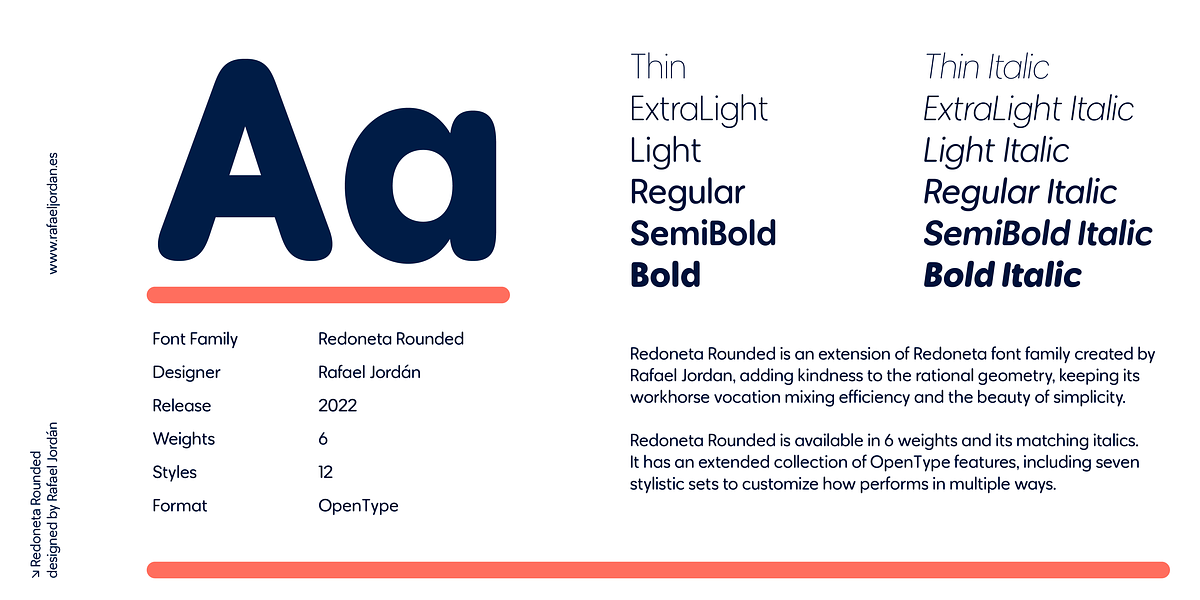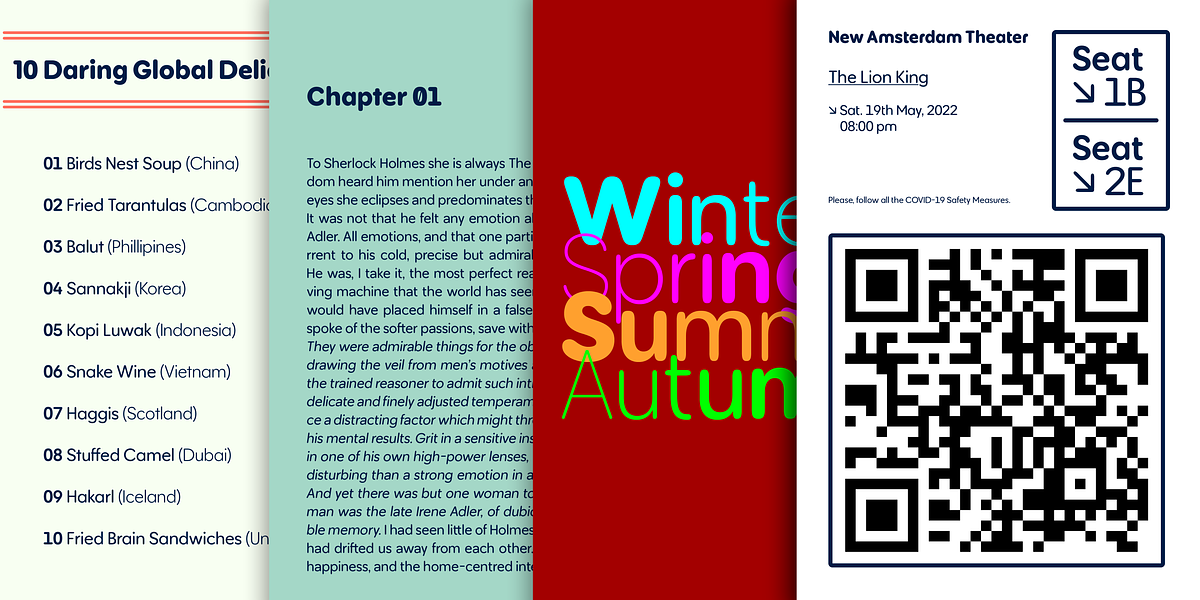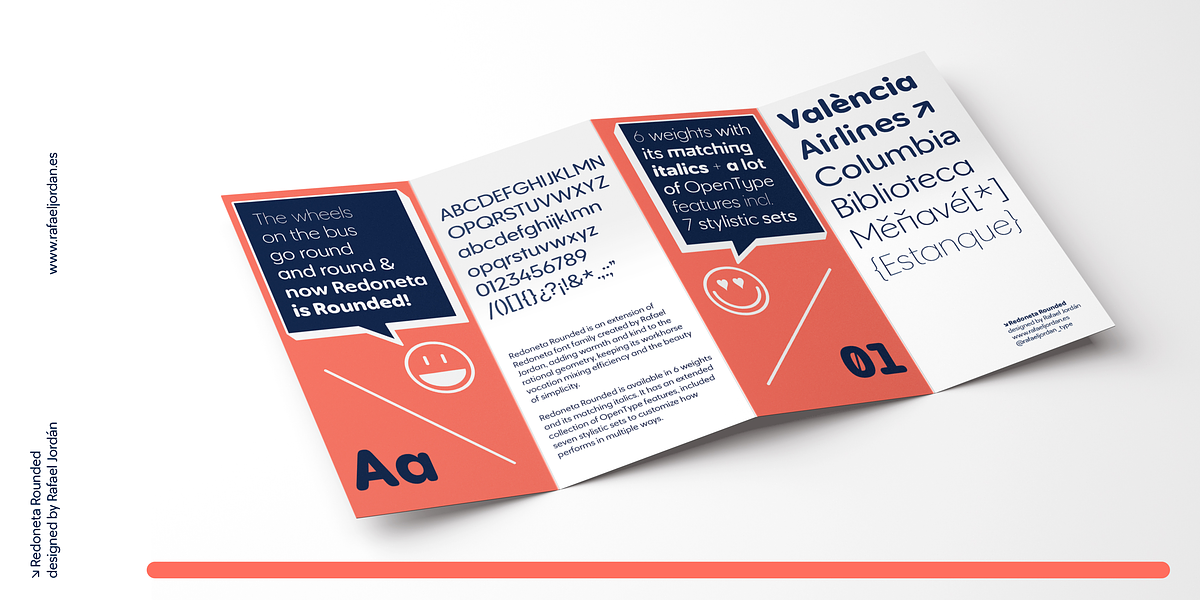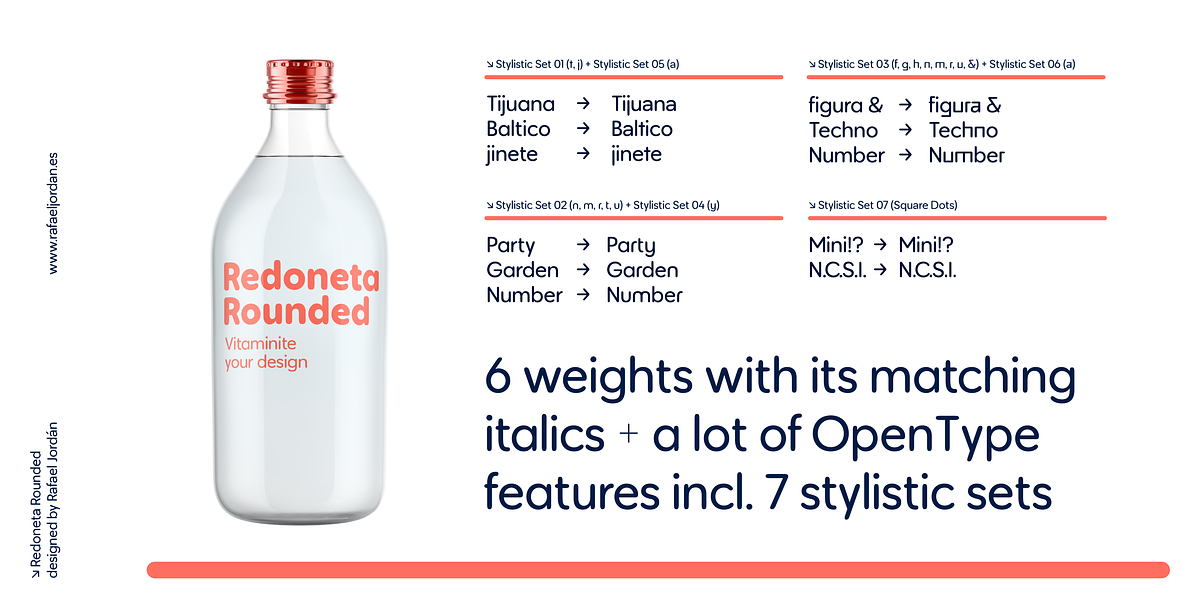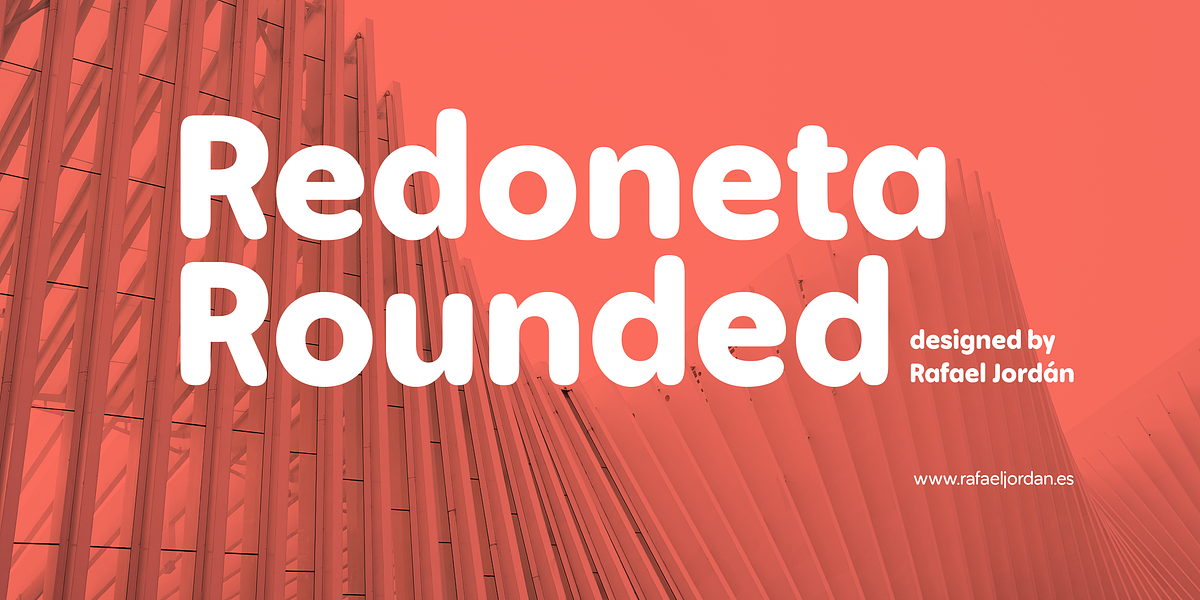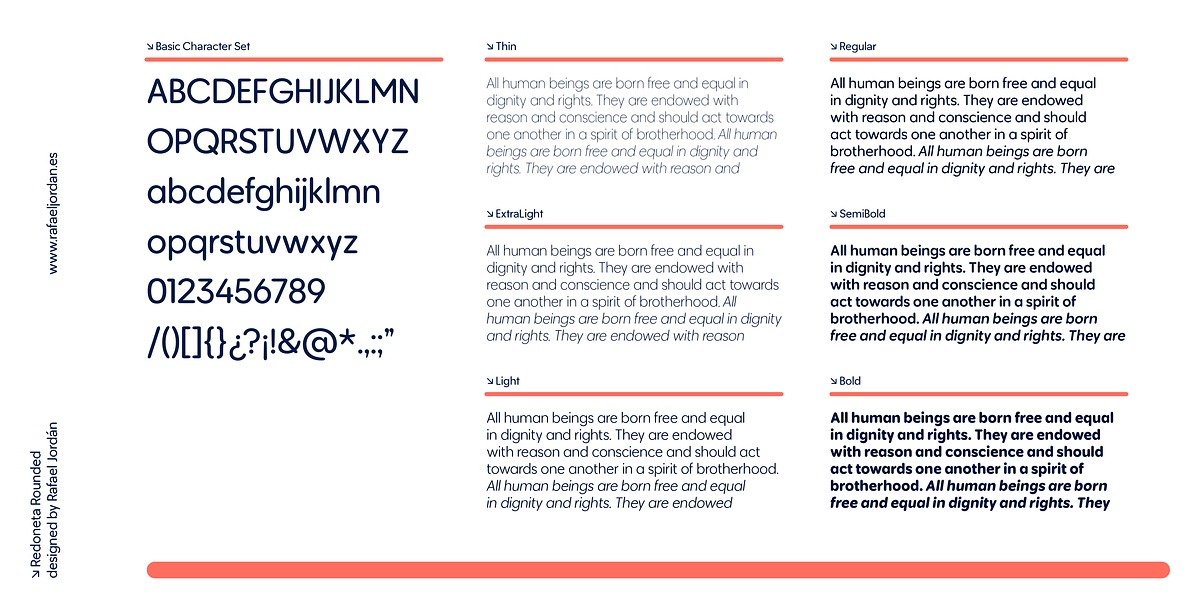
Redoneta Rounded
Redoneta Rounded is a modern sans-serif typeface designed by Rafael Jordan. It features rounded corners for a softer, more approachable aesthetic while maintaining a clear geometric structure. The font family is available in six weights and matching italics, providing versatility for various applications. It includes an extended set of OpenType features, including seven stylistic sets for customization.